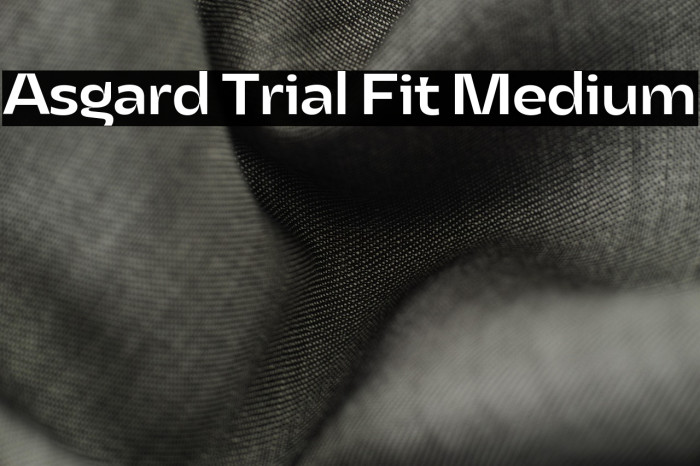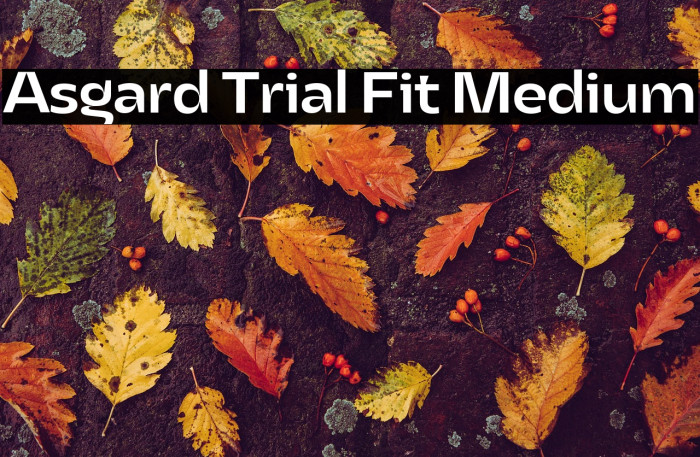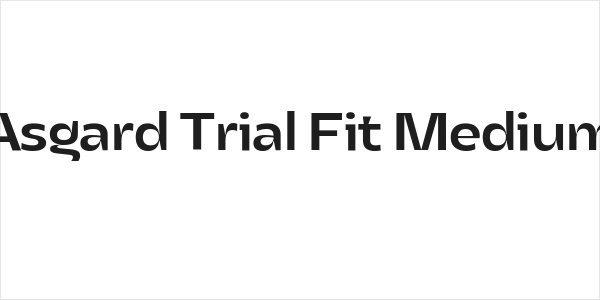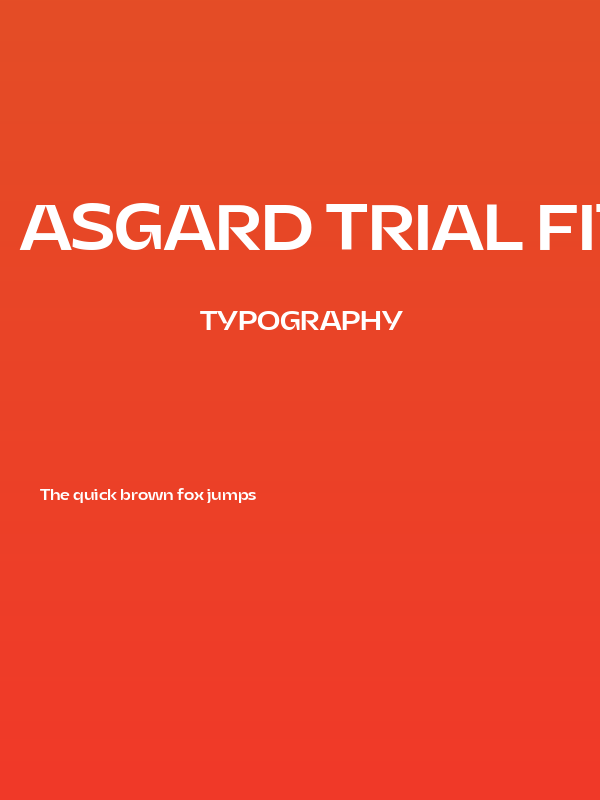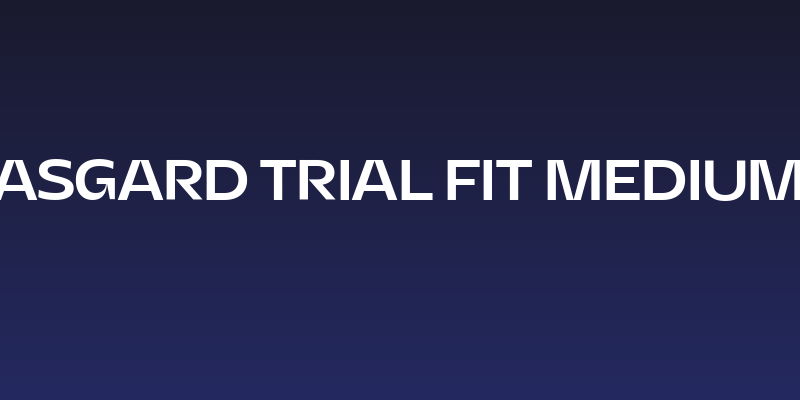
Asgard Trial Fit Medium Font
Asgard Trial Fit Medium Description
This font features a clean and modern sans-serif design with a strong geometric influence. The characters are bold and well-defined, with a consistent stroke width that gives it a uniform appearance. The uppercase letters are slightly wider than the lowercase, providing a balanced and harmonious look. The font includes a full set of uppercase and lowercase letters, numbers, and a variety of special characters. Its simplicity and clarity make it highly legible, suitable for both digital and print media. The overall style is contemporary, with a hint of minimalism, making it versatile for various design needs.
| Proposed Projects | Ideal for branding, advertising, web design, and editorial layouts. |